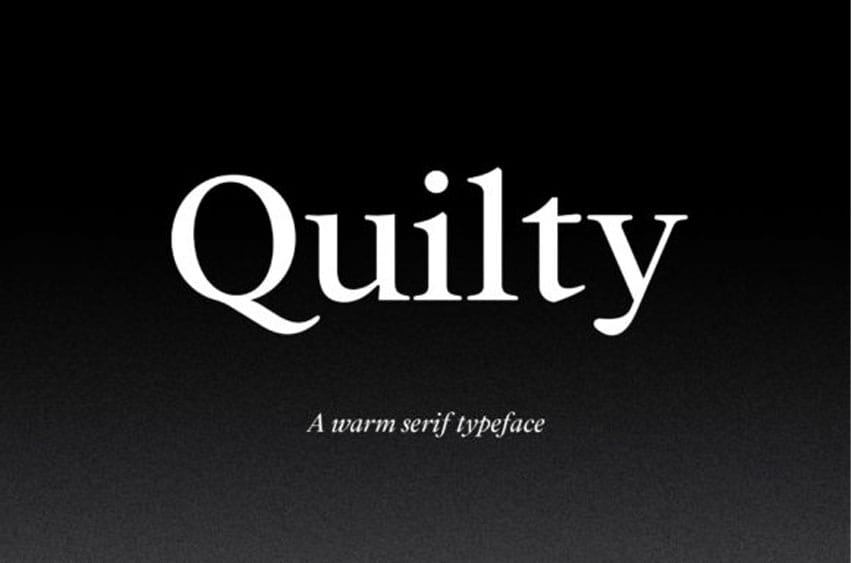
Quilty Font is a bold and versatile serif font.
It has a classy, elegant and modern look that can be used for logos, branding, invitations, stationery, wedding designs, social media posts, and much more!